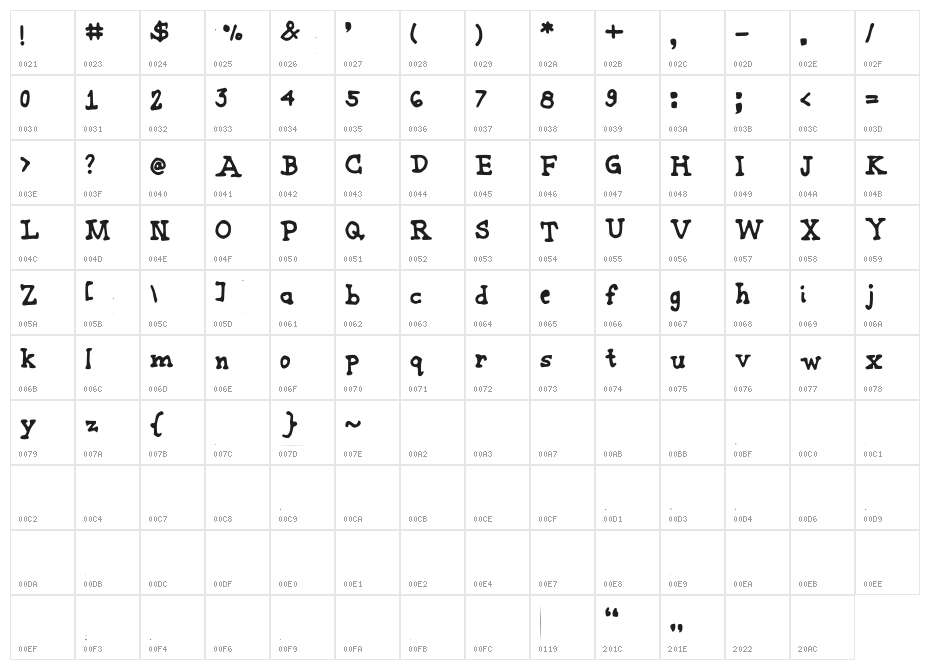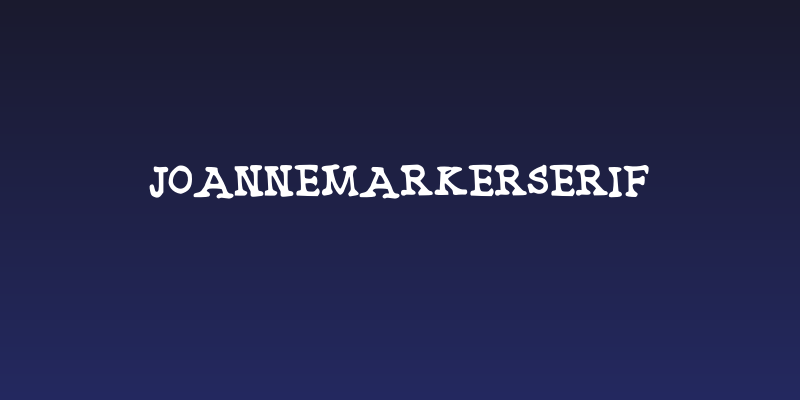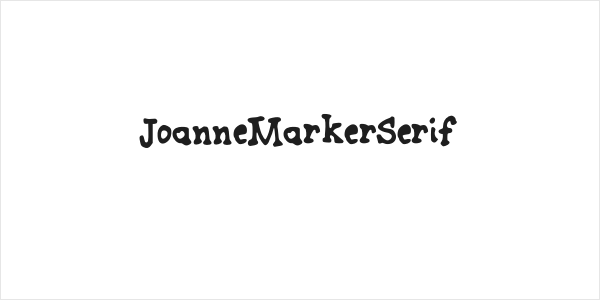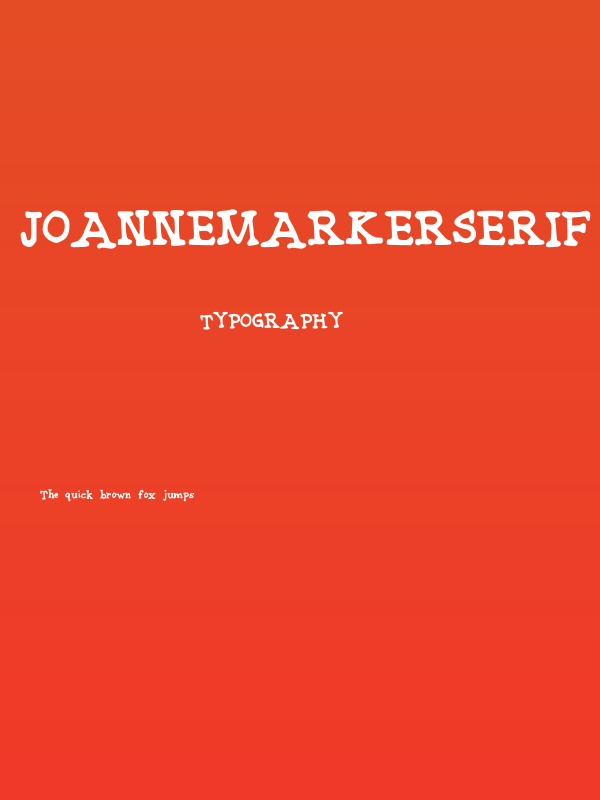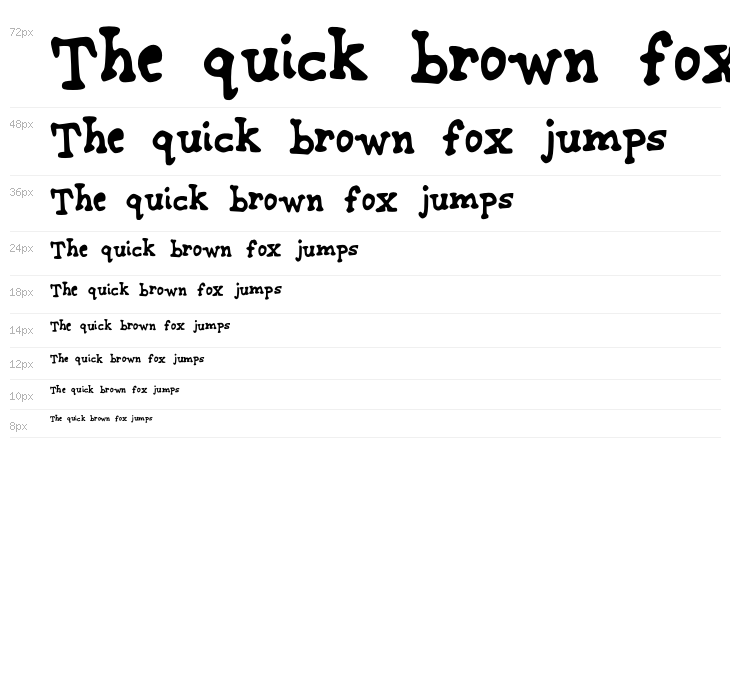
JoanneMarkerSerif Font
JoanneMarkerSerif Description
This font features a playful and informal style, reminiscent of hand-drawn marker strokes. The characters have a slightly uneven baseline, adding to the casual and approachable feel. The strokes are bold and rounded, with a slight serif touch that gives it a unique character. The uppercase and lowercase letters maintain a consistent style, with the uppercase being slightly more pronounced. Numbers and special characters follow the same playful design, making it suitable for creative and informal projects.
| Proposed Projects | Ideal for children's books, creative posters, informal invitations, and playful branding. |